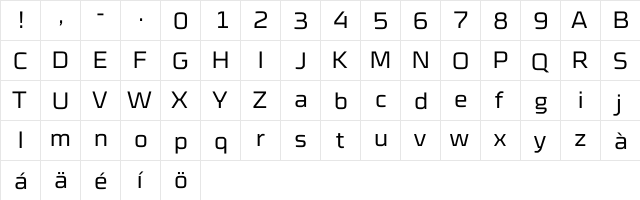
Cube Light
| Foundry | Jan Maack |
| Designer | Jan Maack |
Design Context for Cube Typeface
Cube is a composed and adaptable typeface that performs quietly and consistently across a wide range of design contexts. The delicate stroke weight brings airiness and refinement to layouts.